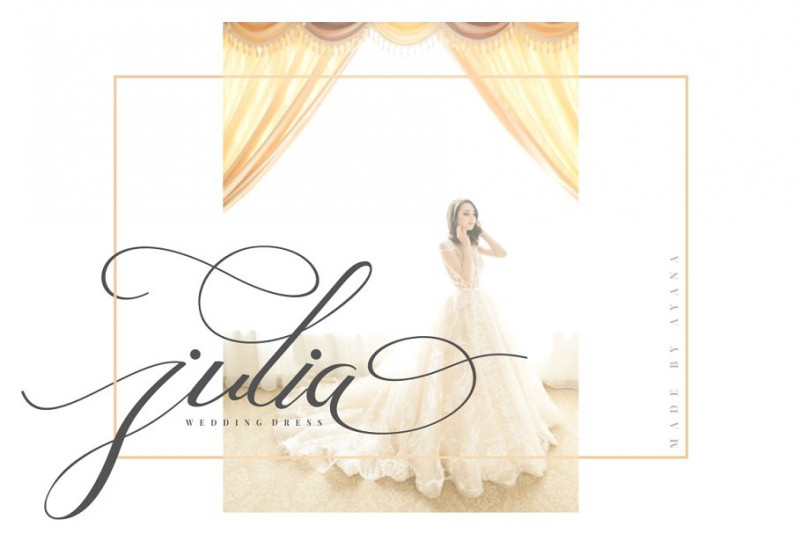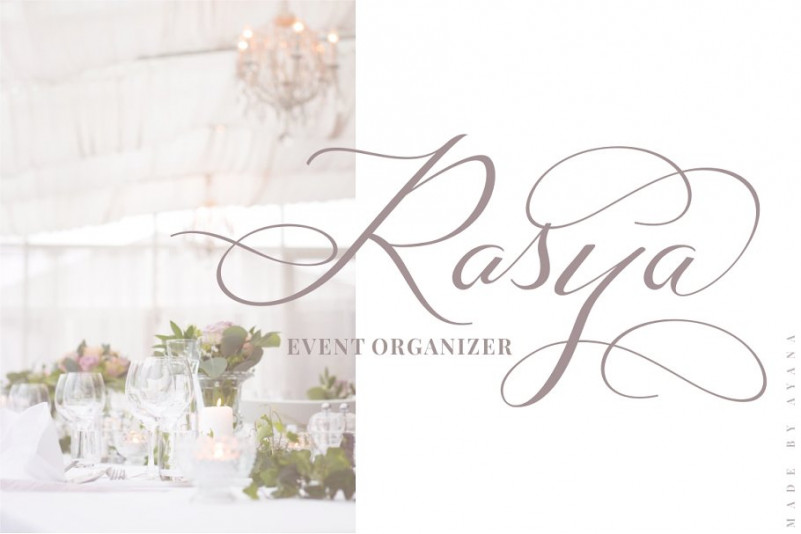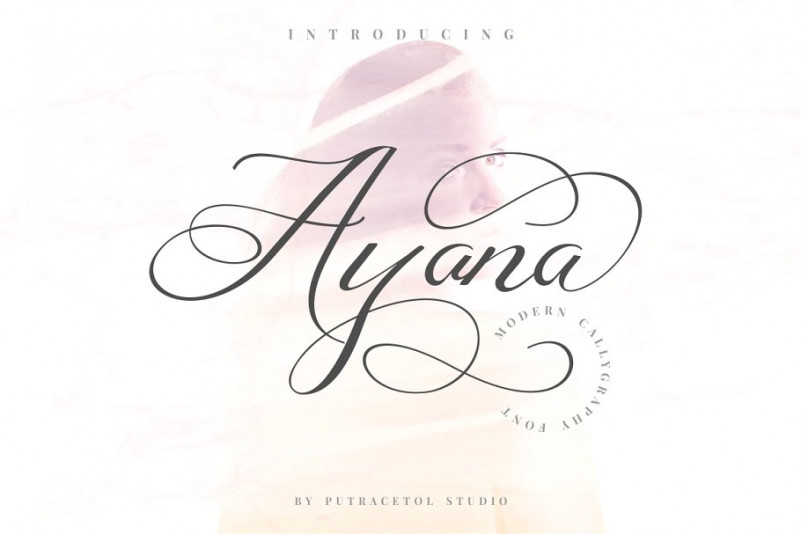
Ayana Calligraphy Font – Free Demo
Ayana Font– If you’re looking for a new calligraphic typeface for your project, try this font. Ayana is a modern calligraphy font with luxurious touch. This font is feminime, elegant, messy ,modern and luxury. Ayana perfect for branding, wedding invite and card, elegant logo, poster, packaging, stationery, website, and many more.